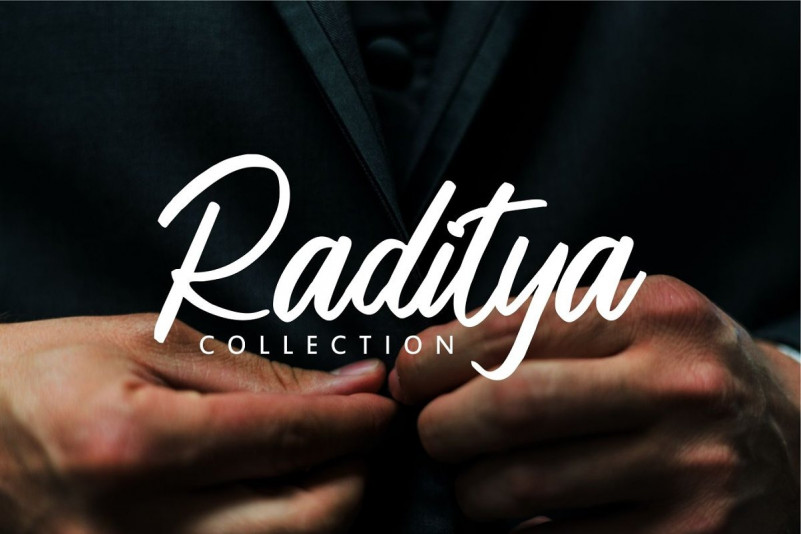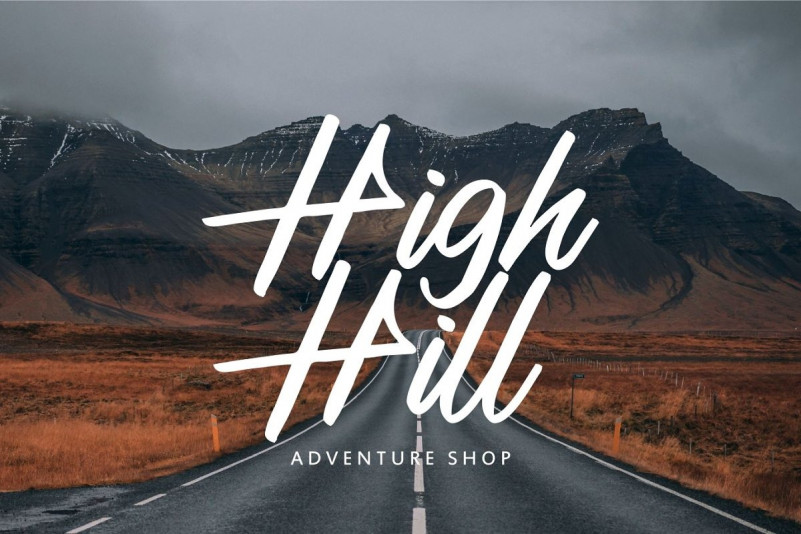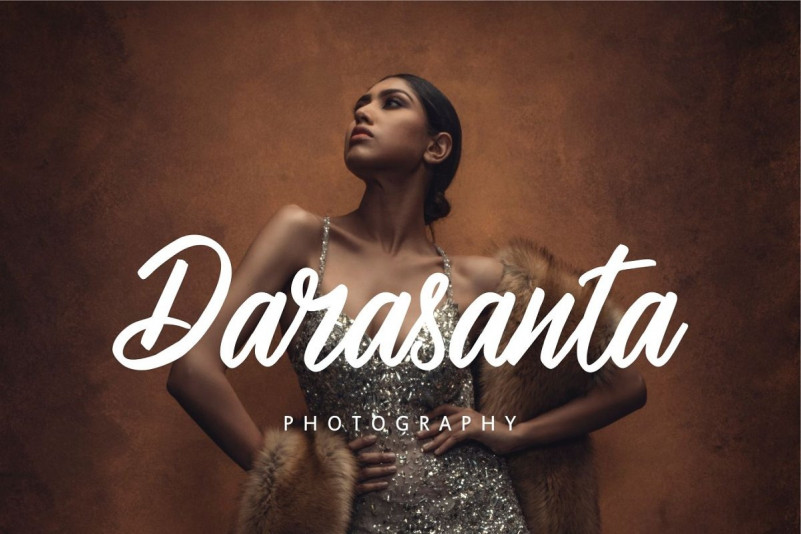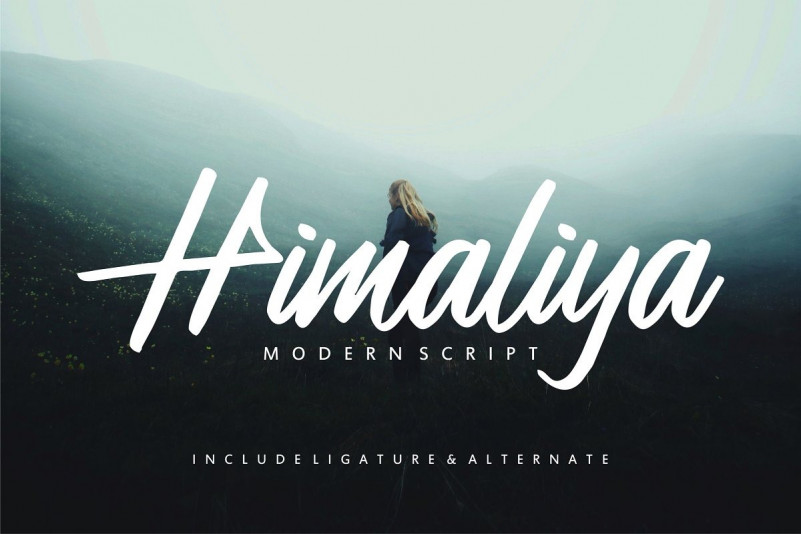
Himaliya Script Font
Himaliya Script Font – Free Demo
This is a calligraphy font with unique, casual and beautiful style. This font pack is perfect for all of your farmhouse designs and country projects. Introducing Himaliya Font. It is designed and shared by Vunira. So beautiful on invitation like greeting cards, branding materials, business cards, quotes, posters, and more!